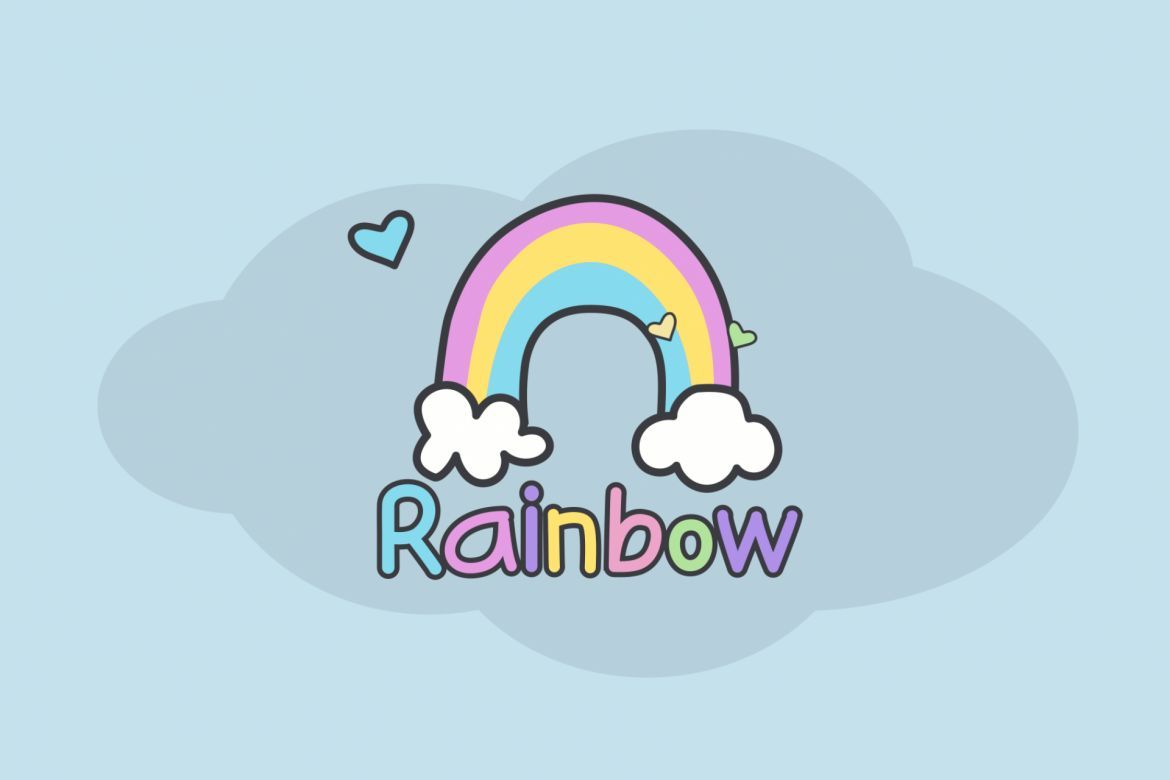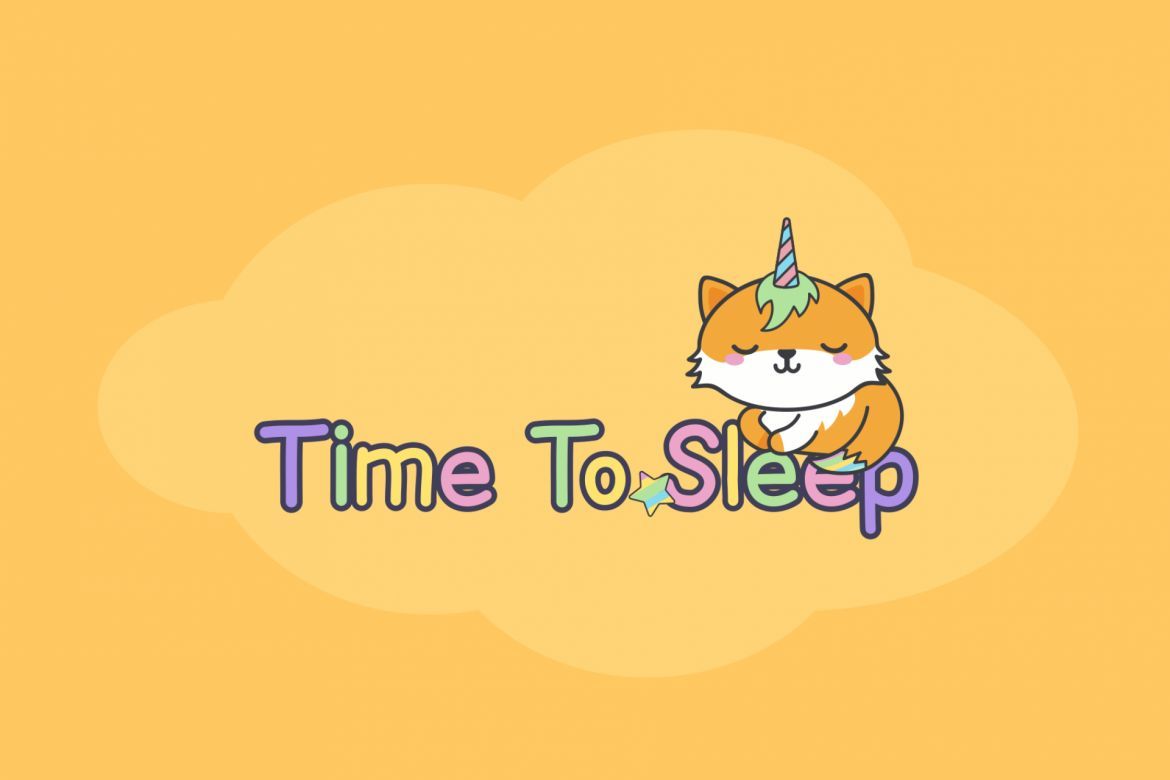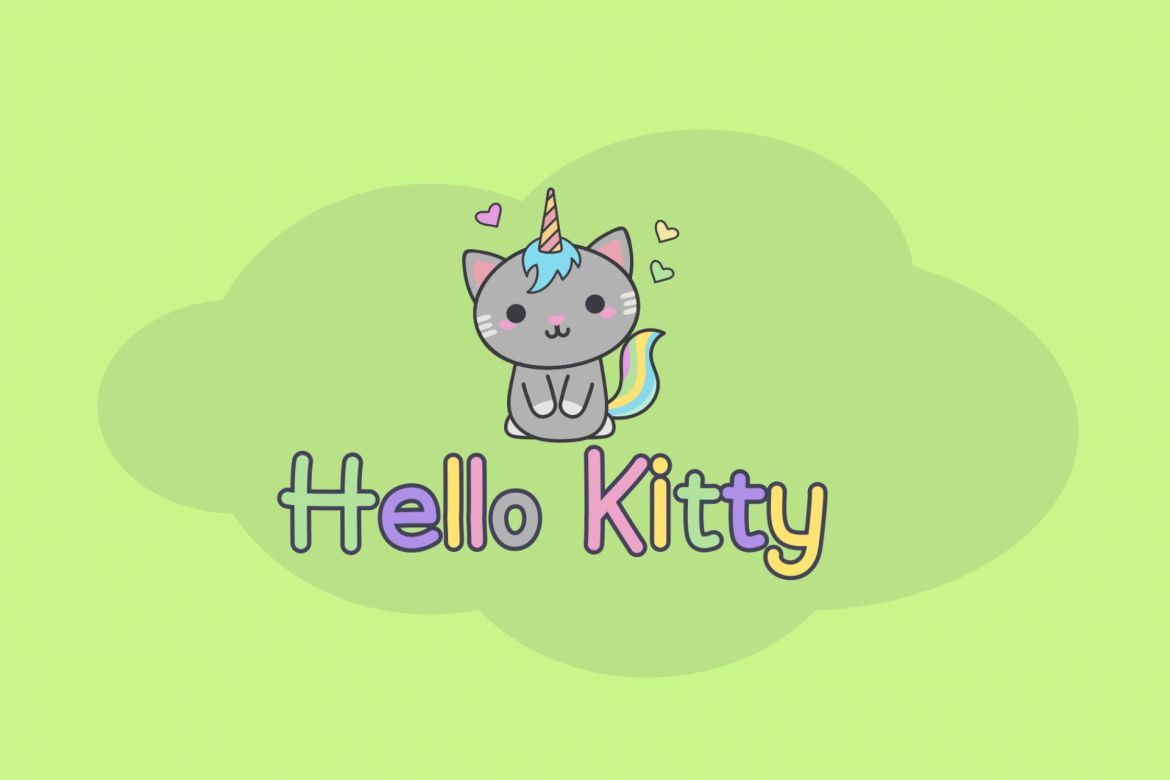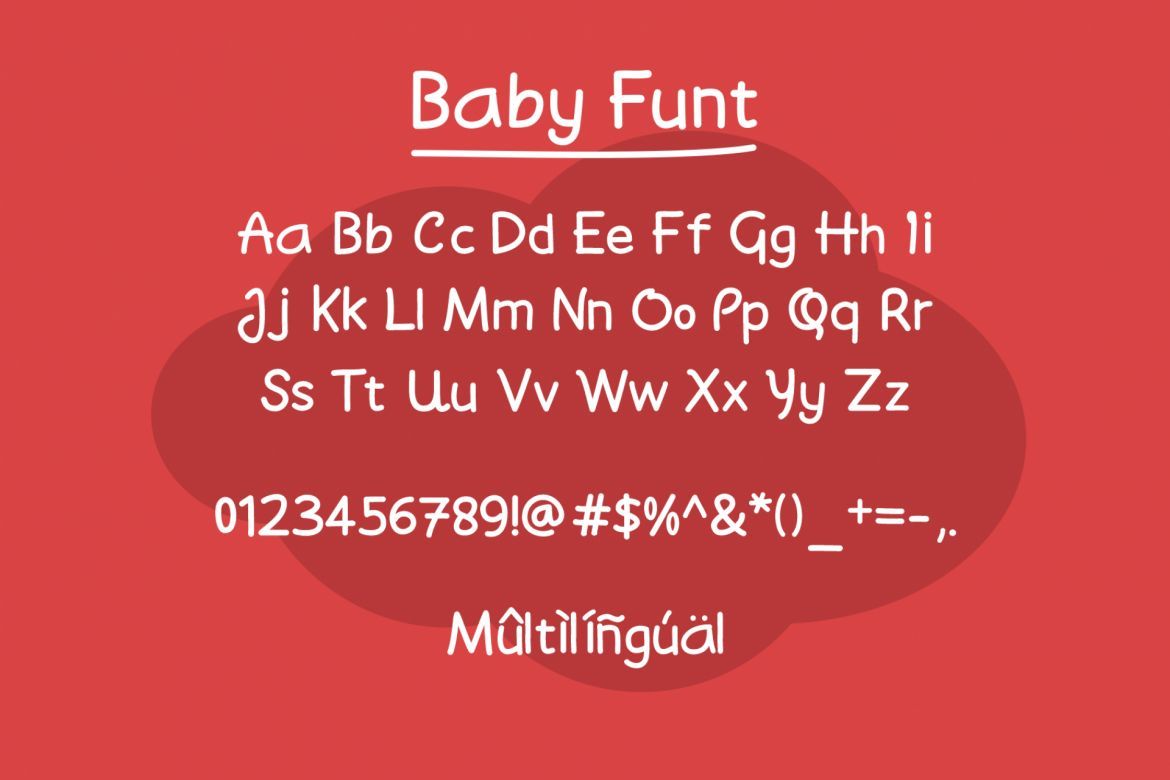
Baby Funt Handwritten Font
Baby Funt Inspired by Playful style and combination with Hand Lettering style. This font can be used for comic design, children's books, preschool name tag and others.
• font for children book